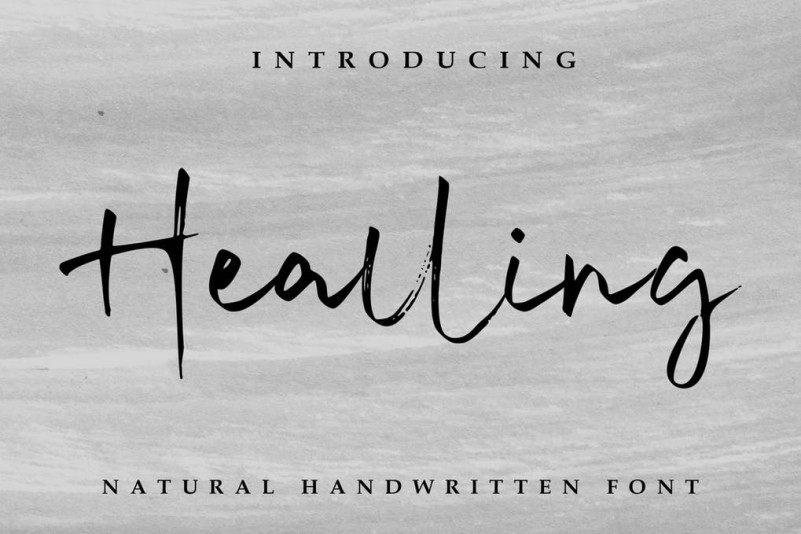
Healling Signature Font
Healing is elegant signature. Perfect for any signature purpose, watermark photography, business, and many other . What’s Include :